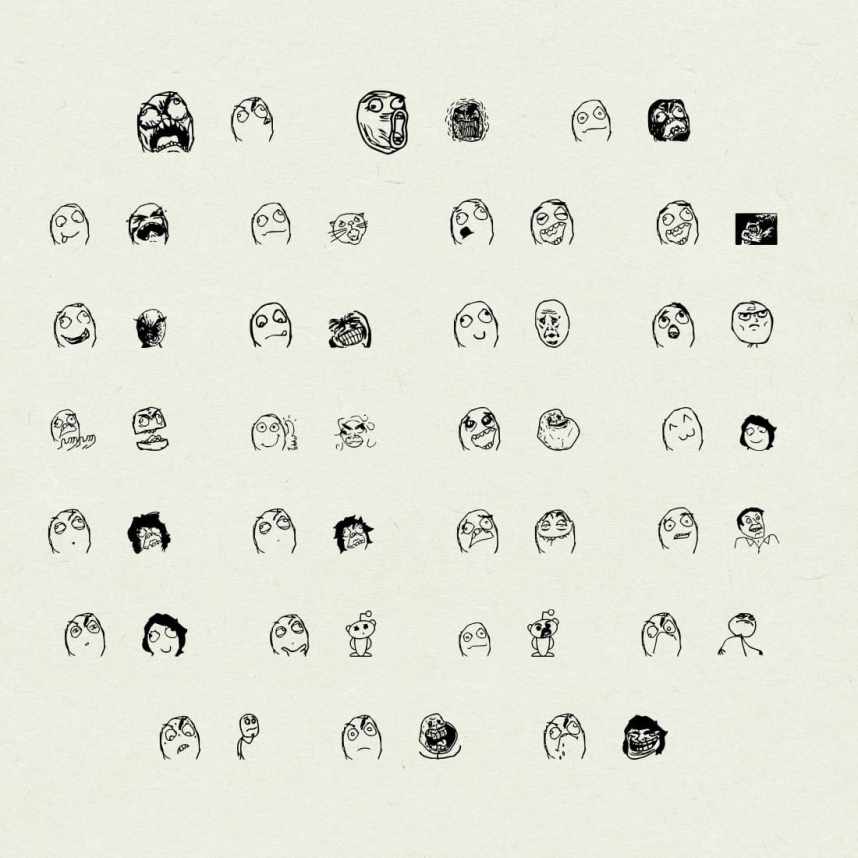
Memes who don’t like them. Now there is even such a font. Meme Font was created by Dafont.com studio and given for free access and use. It is the original font. Suitable for original prints or printing on T-shirts.